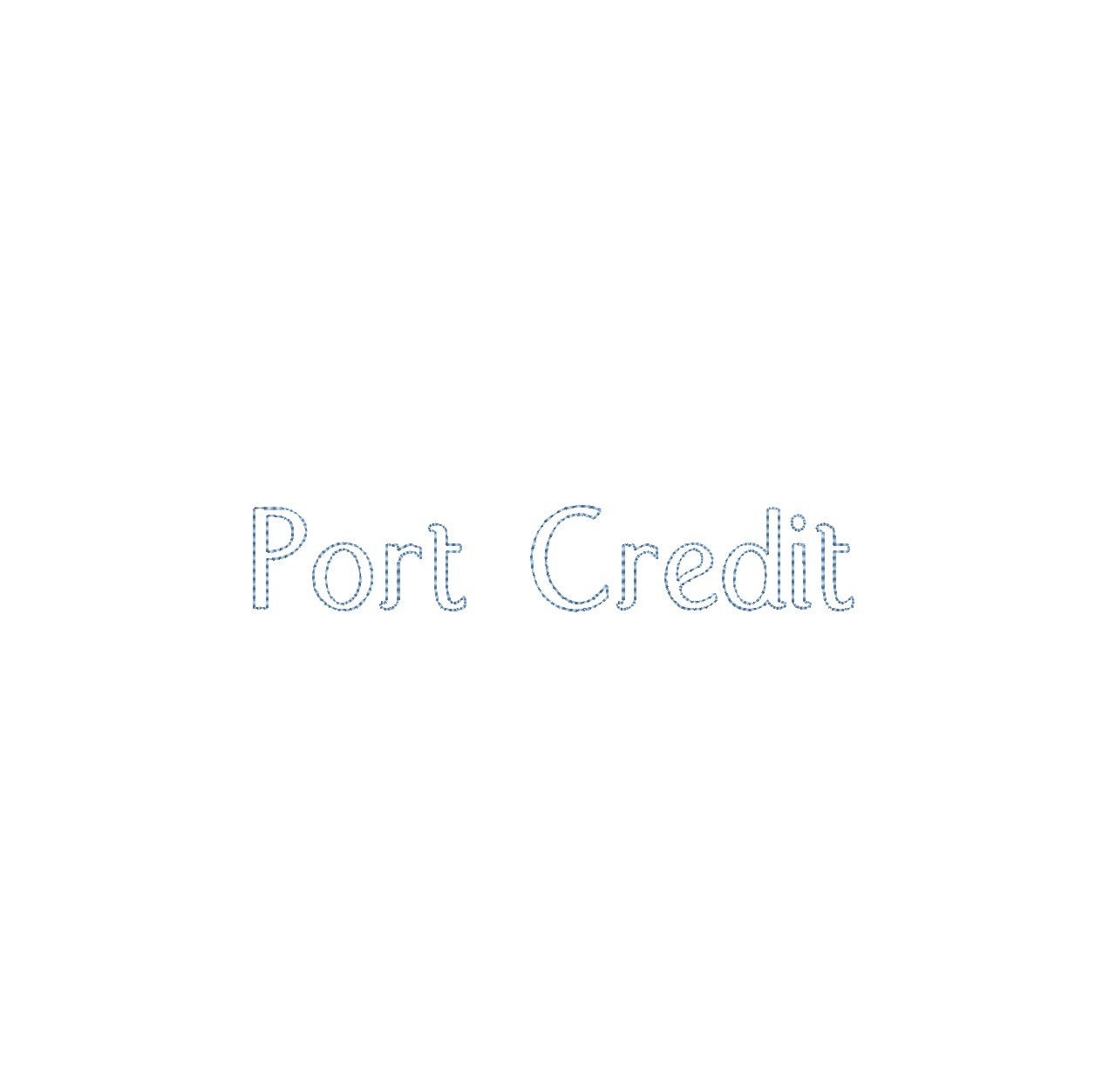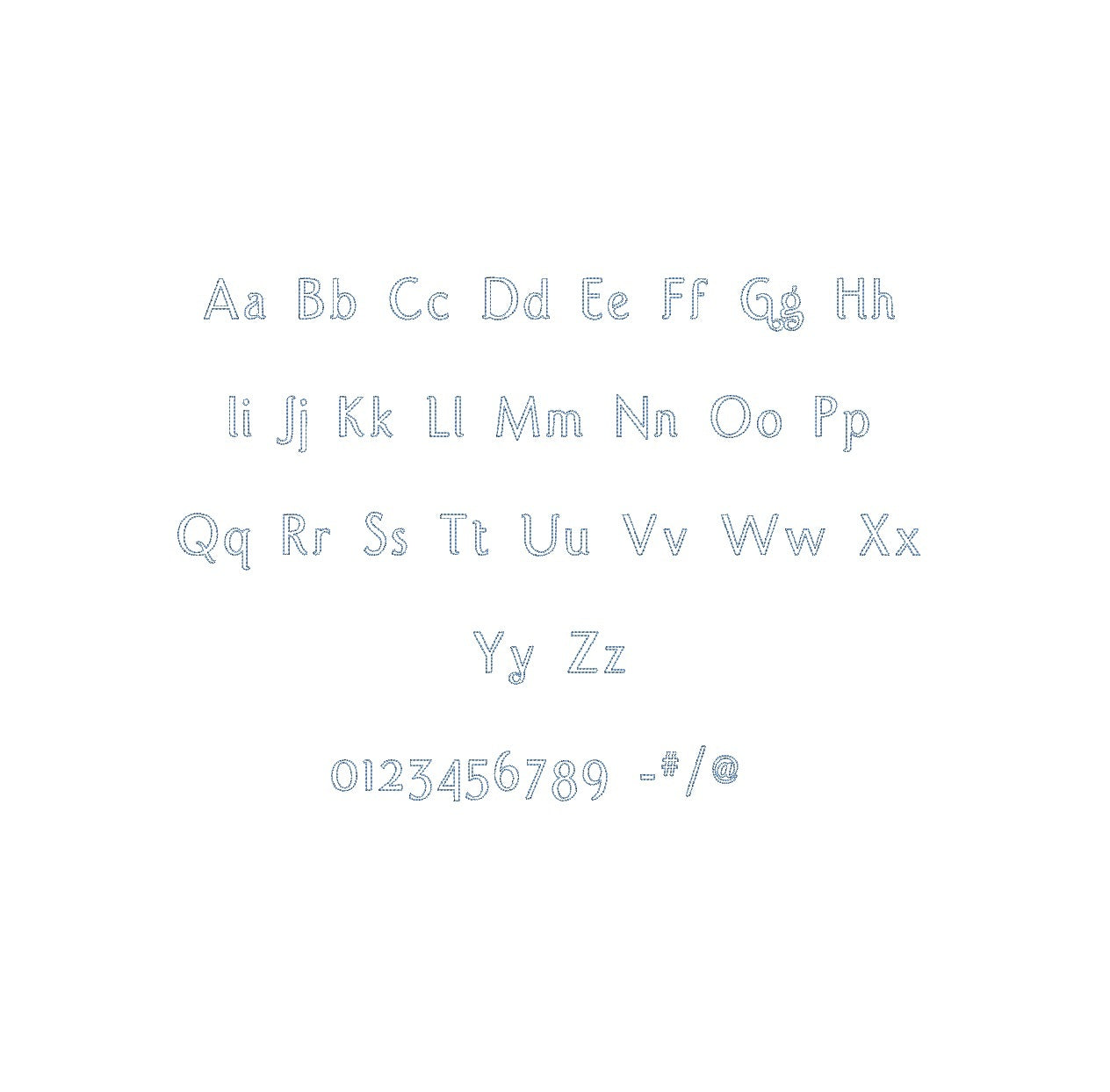
Elevate your embroidery projects with the Port Credit Bean Outline ESA font. Crafted for Wilcom Studio e4.5.6 and Hatch 3 versions and up, this font seamlessly blends sophistication and precision. Infuse your designs with a unique aesthetic, ideal for monograms and embellishments. Experience seamless compatibility for outstanding results. Unleash a new level of stitching finesse with the Port Credit Bean Outline ESA font – your key to captivating designs that exude timeless charm. Transform your creations into embroidery masterpieces that showcase your creativity. Elevate your projects with the Port Credit Bean Outline ESA font for truly exceptional embroidery.